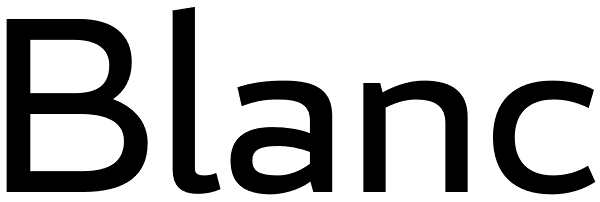
Blanc
Blanc is a functional humanist sans typeface with a marked personality and great style that make it ideal for use in headlines. Blanc is an ode to neutrality: a geometric face characterised by low contrast between thick and thin strokes with...